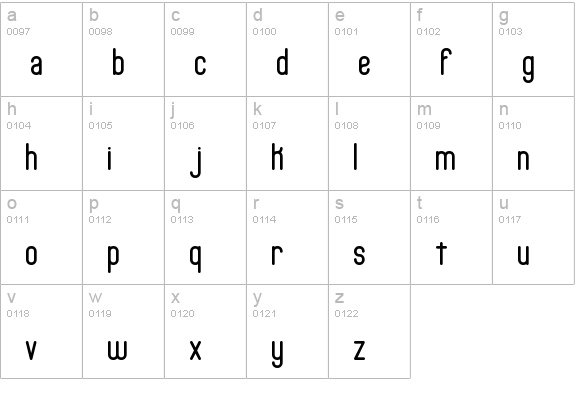
Bobcaygeon Plain BRK Font Details
Bobcaygeon Plain BRK font is a charming and versatile typeface that exudes a sense of simplicity and elegance. Its clean lines and classic design make it perfect for a wide range of design projects, from logos to invitations to branding materials. The font's timeless appeal and easy readability make it a go-to choice for designers looking for a dependable and stylish option. And the best part? Bobcaygeon Plain BRK font is available for free download at FontsMarket.com, making it accessible to all designers looking to add a touch of sophistication to their work. Don't miss out on this fantastic opportunity to elevate your designs with this beautiful and versatile font. Download Bobcaygeon Plain BRK today and let your creativity shine!